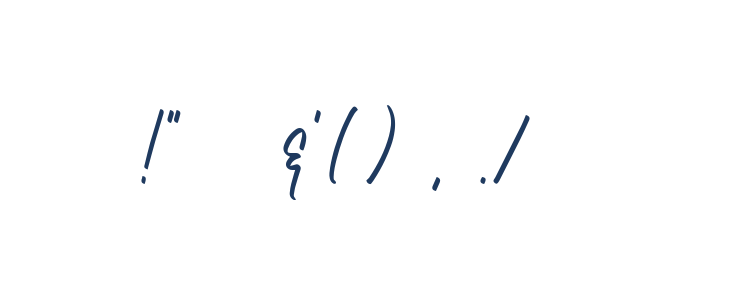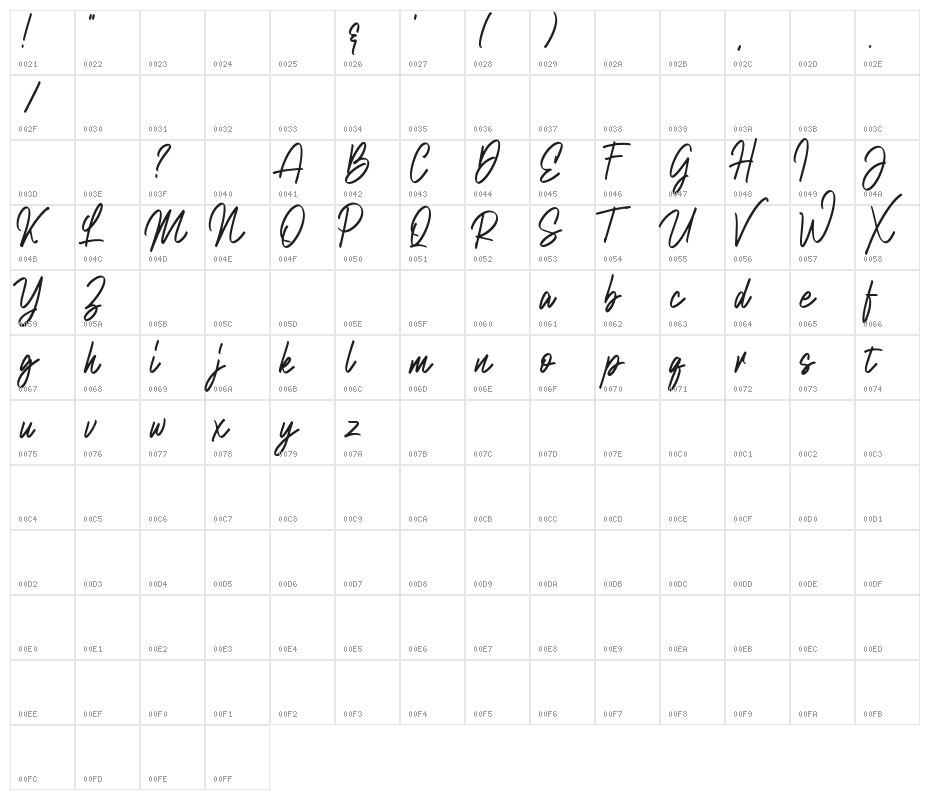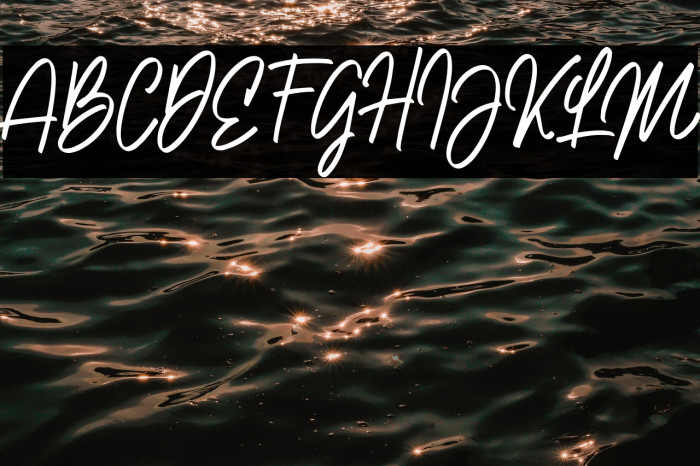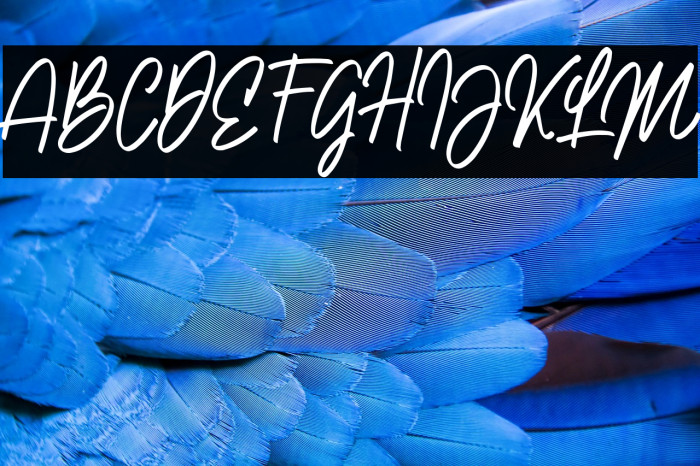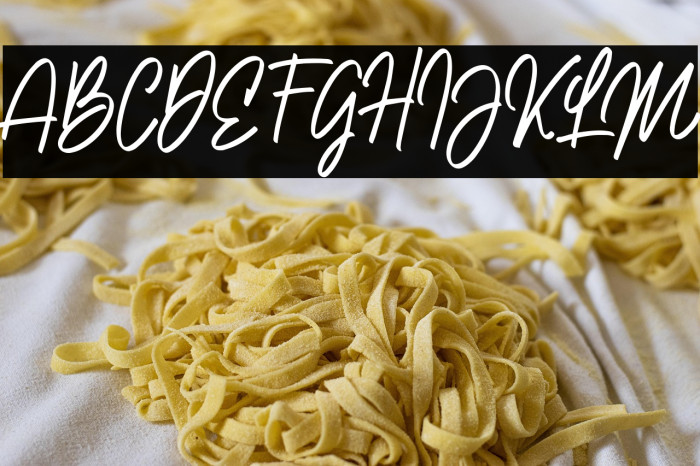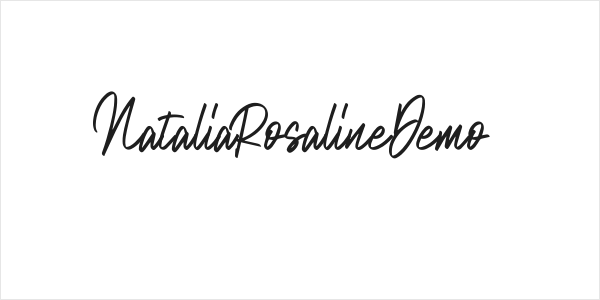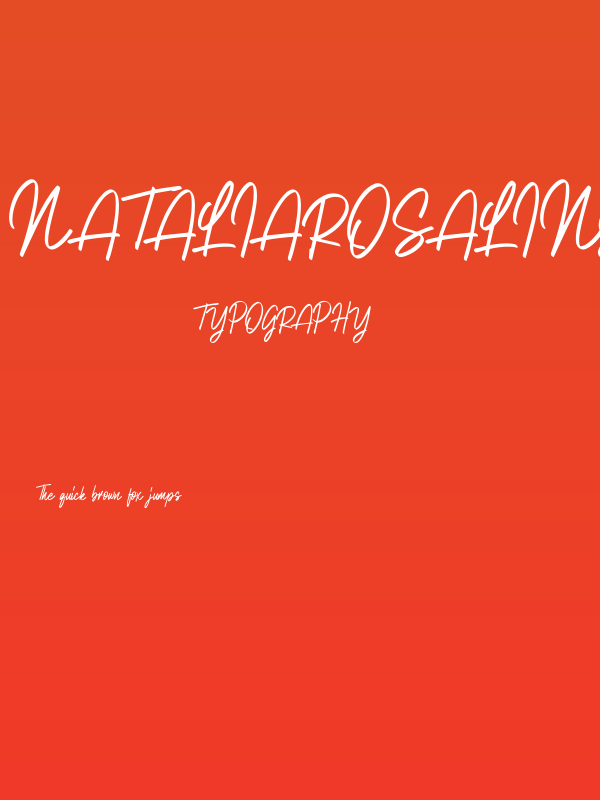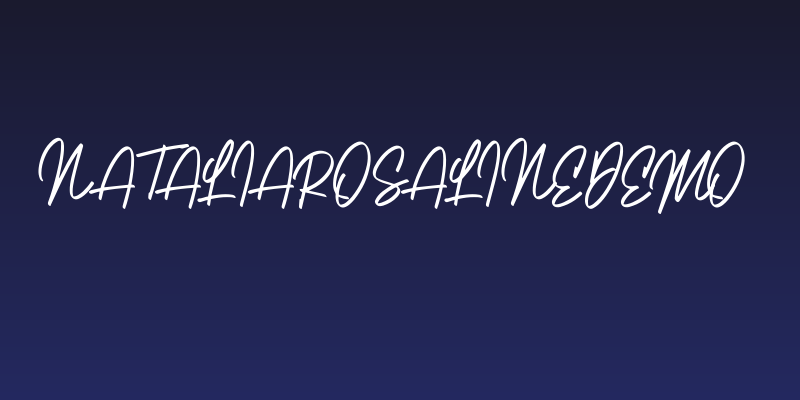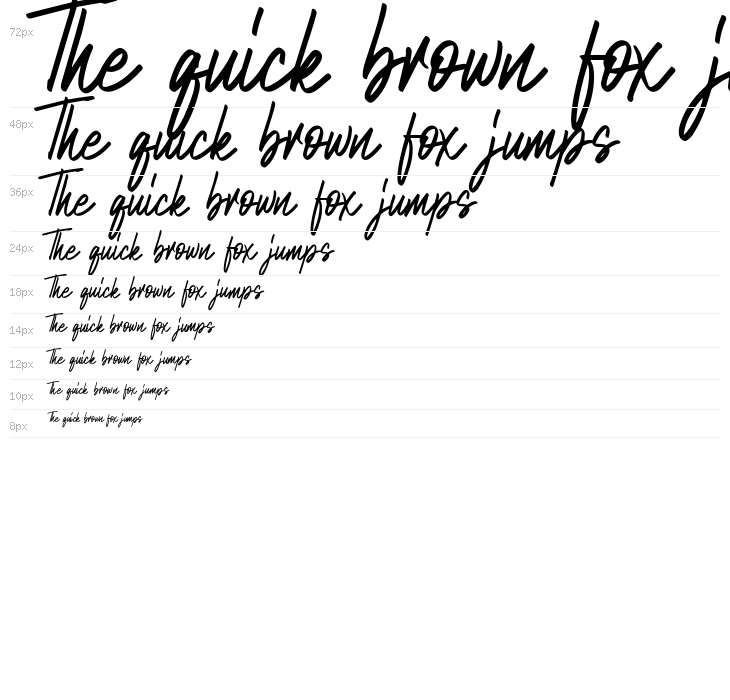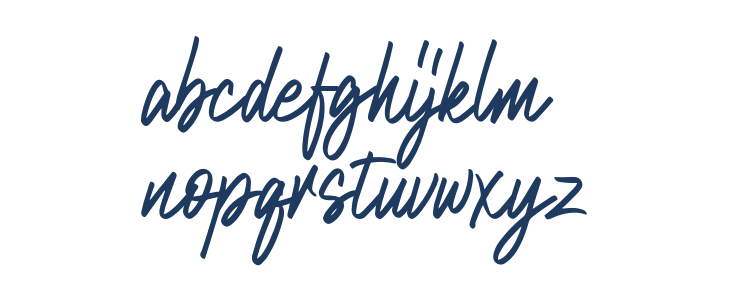
NataliaRosalineDemo Font
NataliaRosalineDemo Description
This font exudes a lively and dynamic energy, characterized by its flowing, cursive script style. The letters are interconnected, creating a seamless and elegant appearance. The strokes are smooth and fluid, with a consistent thickness that adds to the overall harmony of the design. The uppercase letters maintain a sophisticated flair, while the lowercase letters are more playful and approachable. The special characters are well-integrated, maintaining the font's cohesive look. This script font is perfect for projects that require a personal touch or a sense of movement and creativity.